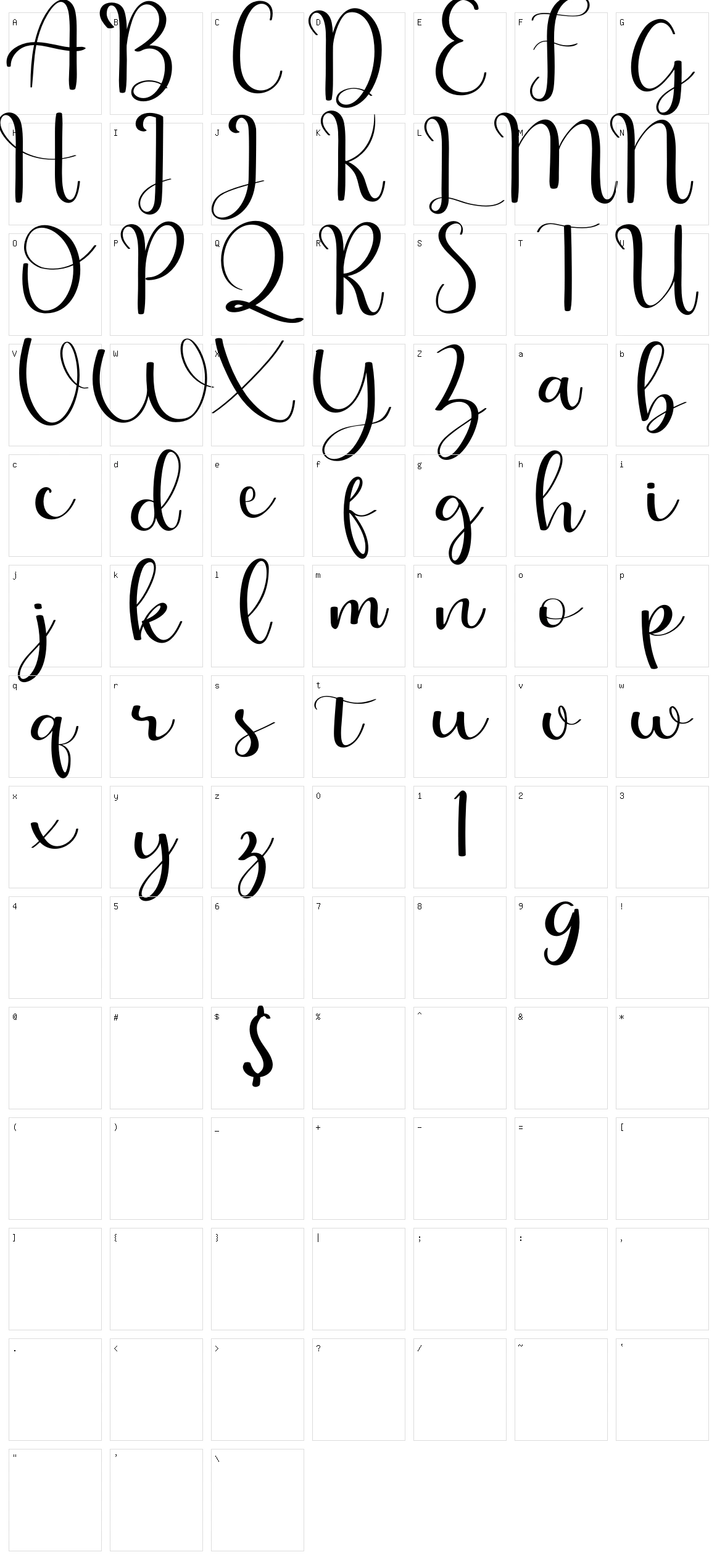
The free font Falling is carefully designed by Nuryanto Dwi, showcasing a thoughtful balance of creativity and usability and falls under the Script font style. When you download the ZIP file, it contains only 408.99 KB of font files, making it lightweight and quick to download. Please review the license details below to understand permitted usage and distribution rights. If license information is not available, we recommend using this font for personal projects only or contacting the author directly for commercial usage permissions.